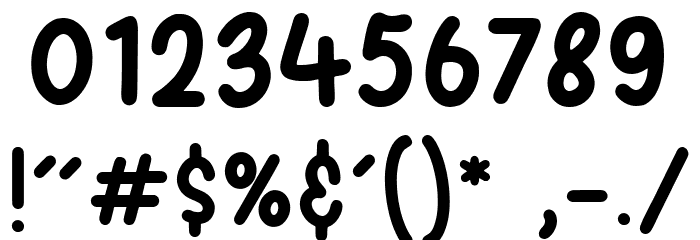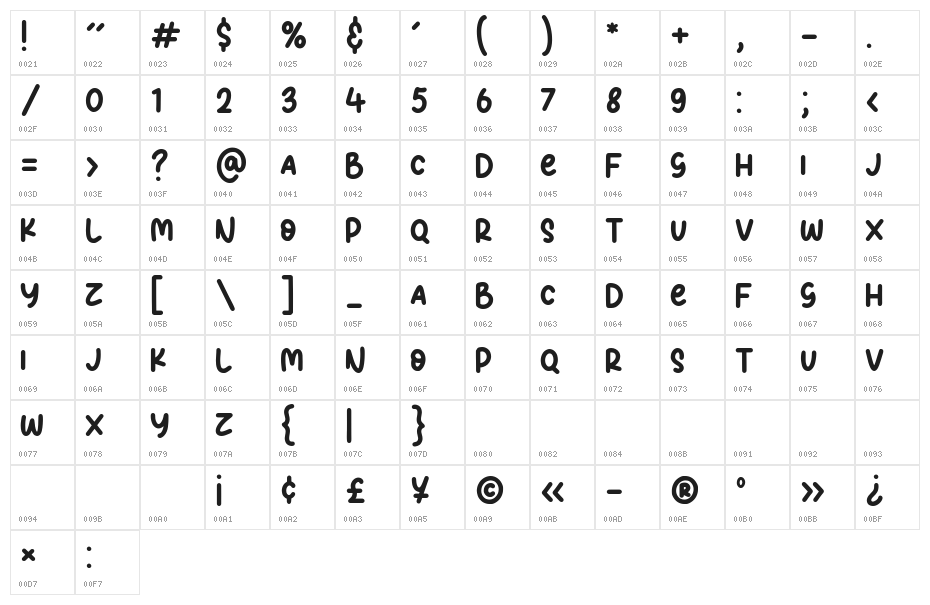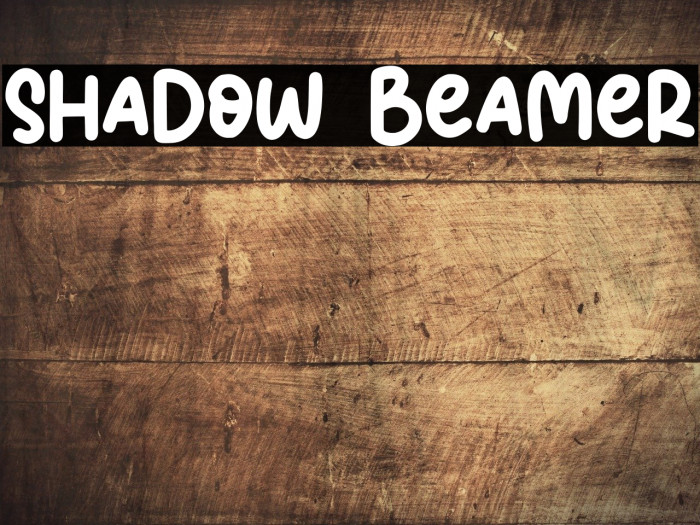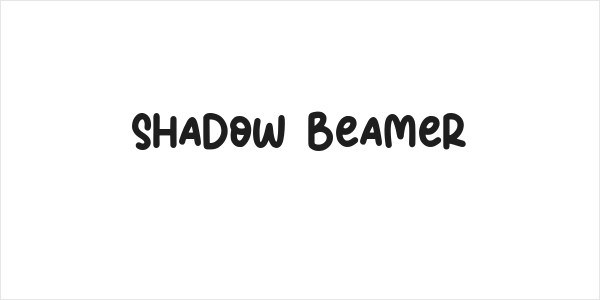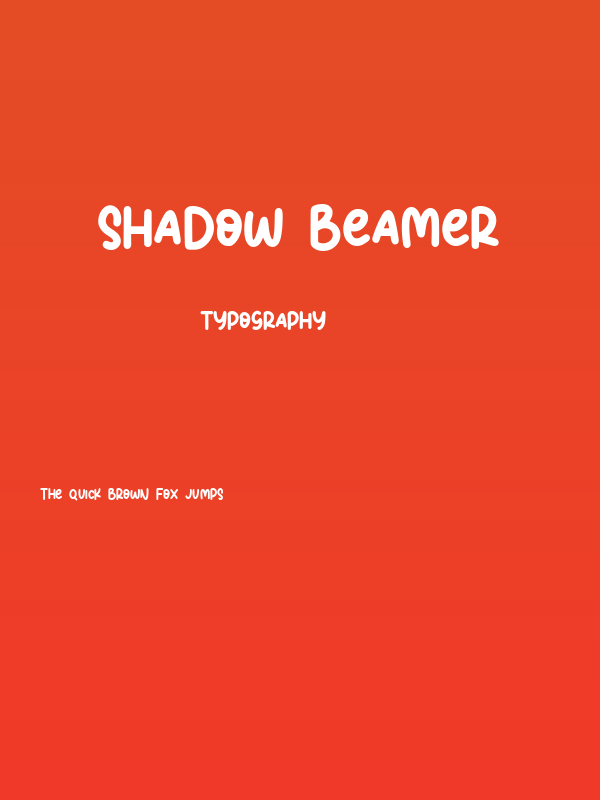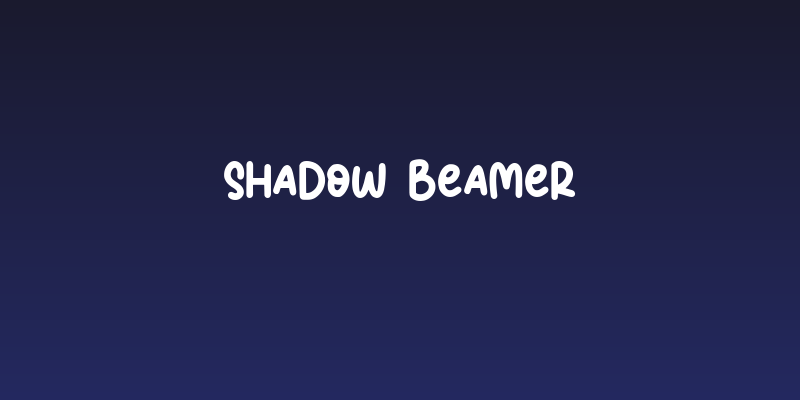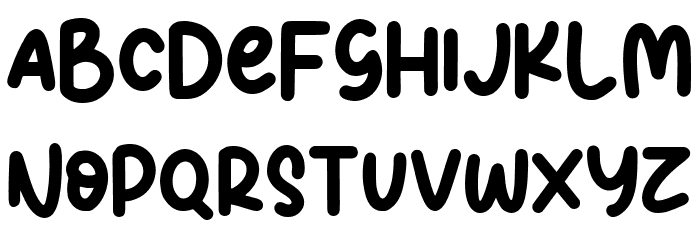
Shadow Beamer Font
Shadow Beamer Description
This playful and bold font features rounded, thick strokes that give it a friendly and approachable appearance. Each character is crafted with a consistent weight, contributing to its cohesive look. The letters are slightly condensed, enhancing readability while maintaining a fun, informal style. The font includes a full set of uppercase and lowercase letters, numerals, and a variety of special characters, making it versatile for different design needs. Its smooth curves and lack of sharp edges make it particularly suitable for projects aimed at a younger audience or those requiring a casual, light-hearted touch.
| Proposed Projects | Ideal for children's books, playful branding, casual invitations, and social media graphics. |